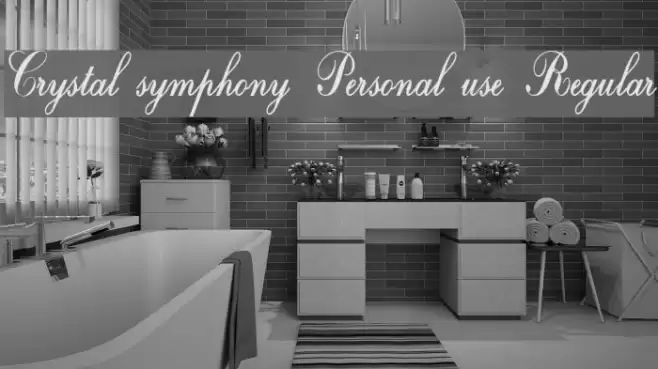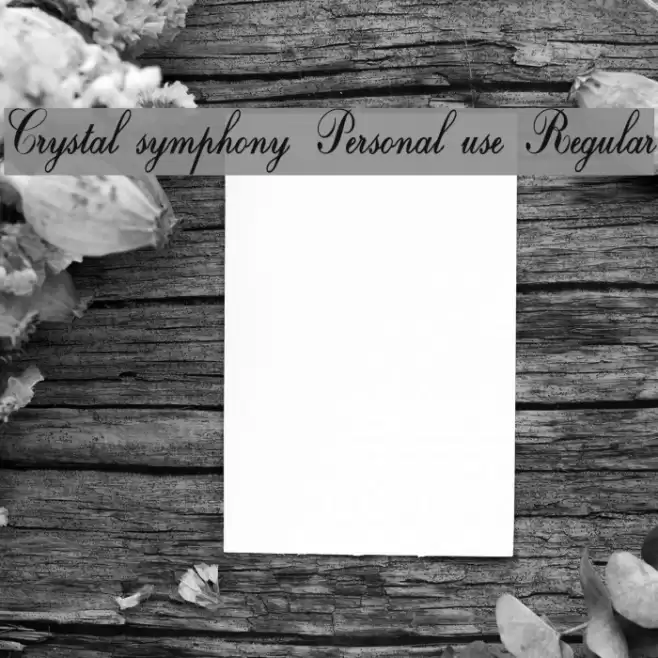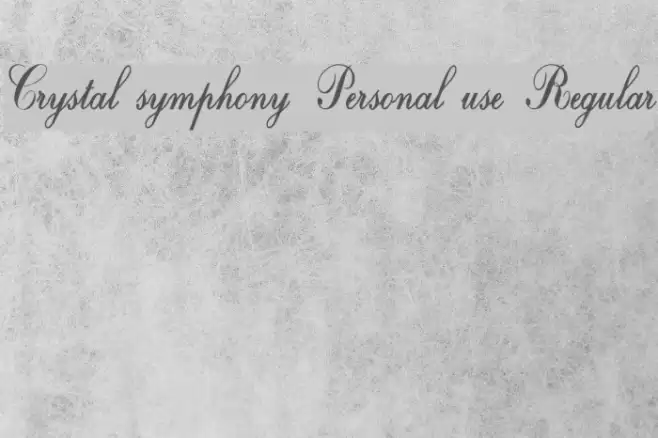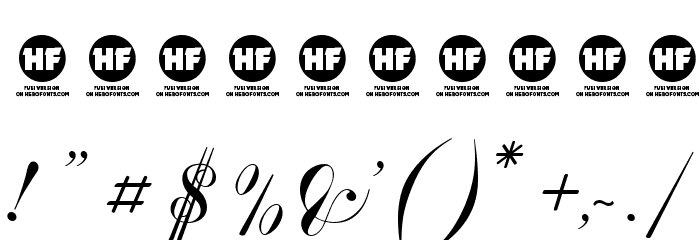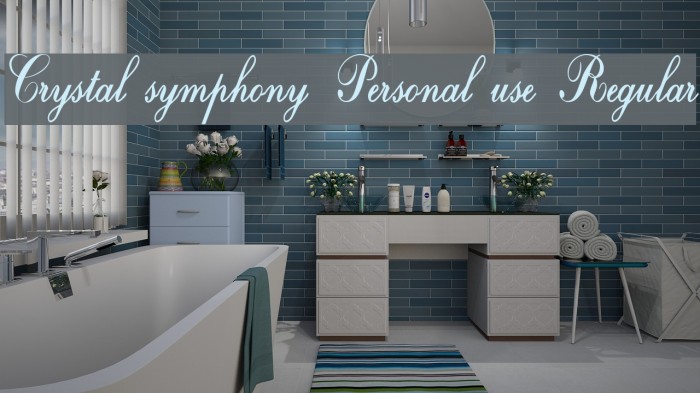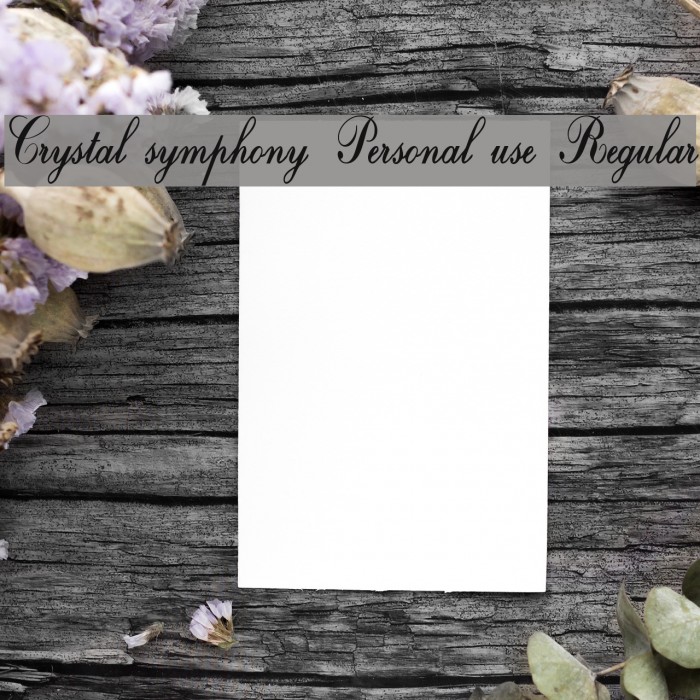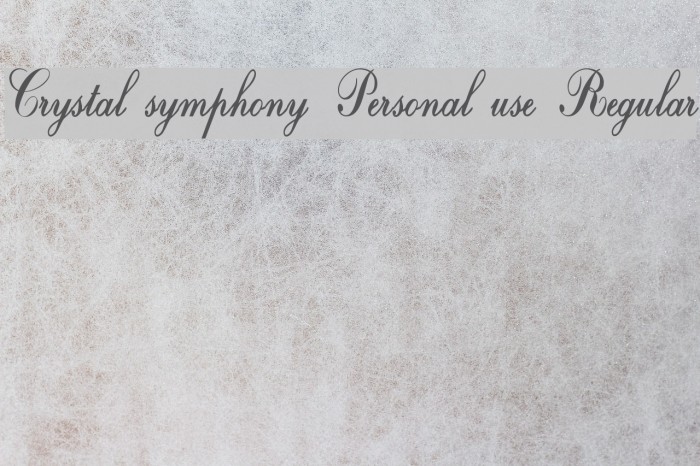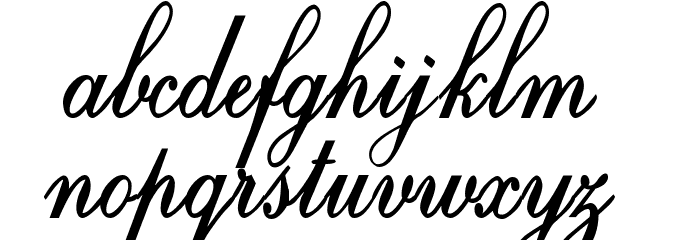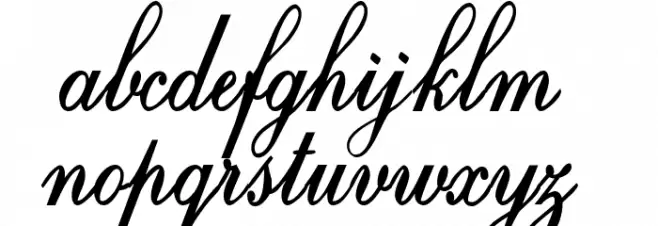
Crystal symphony Personal use Regular Font
Crystal symphony Personal use Regular Description
This font exhibits a sophisticated and elegant script style, characterized by its flowing, cursive letterforms. The uppercase letters are ornate, with intricate loops and flourishes that give a sense of movement and grace. The lowercase letters maintain a consistent slant, enhancing the cursive aesthetic while ensuring readability. The numerals and special characters are designed to complement the overall script style, featuring similar curves and embellishments. This font's design is reminiscent of traditional calligraphy, making it suitable for projects that require a touch of elegance and formality.
An elegant script font with flowing, cursive letterforms and intricate flourishes from Script fonts.
- Proposed Projects: Ideal for wedding invitations, elegant branding, formal event programs, and luxury product packaging.
- Overall Style: Classic
- Use Case: Logos, Invitations, Decorative text